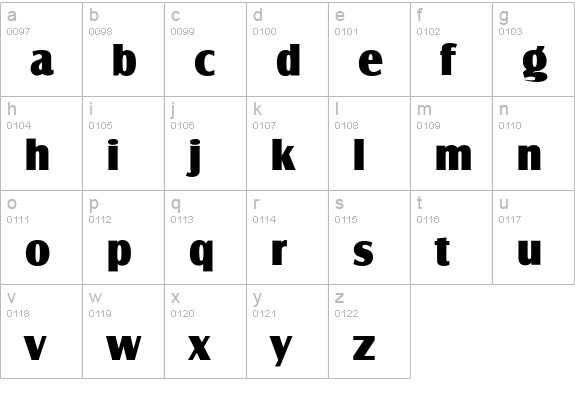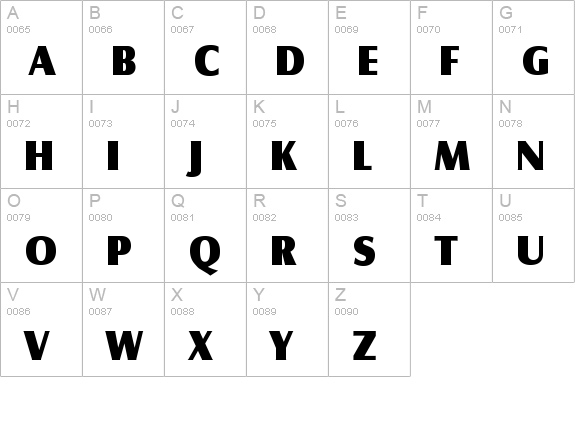
Salzburg-ExtraBold is an extra-heavy, attention-grabbing variant in the Salzburg typeface family \xE2\x80\x94 well suited to high-impact headlines, posters, and bold branding.
Salzburg-ExtraBold is a bold and powerful font that exudes strength and authority. Its thick and sturdy letterforms make a bold statement, commanding attention and leaving a lasting impression. This font is perfect for headlines, titles, and designs that require a strong visual impact. With its strong and bold presence, Salzburg-ExtraBold is sure to make your designs stand out from the crowd. Whether you're designing a logo, creating a poster, or crafting a powerful message, this font will help you achieve the desired impact. But what sets Salzburg-ExtraBold apart is not just its strength and boldness, but also its accessibility. This font is freely available to download at FontsMarket.com, making it easily accessible to anyone who wants to enhance their designs with its powerful presence. So why settle for ordinary fonts when you can have the extraordinary? Download Salzburg-ExtraBold for free at FontsMarket.com and elevate your designs to new heights. Let the power of this font work its magic and captivate your audience.